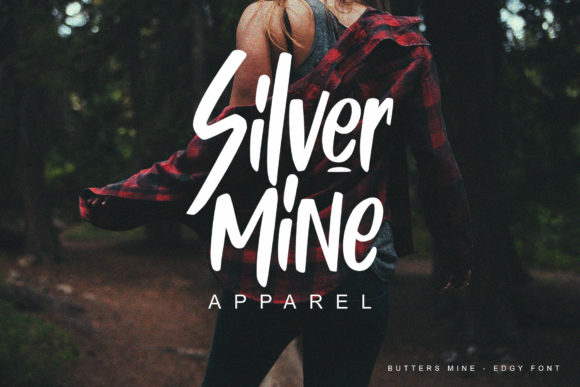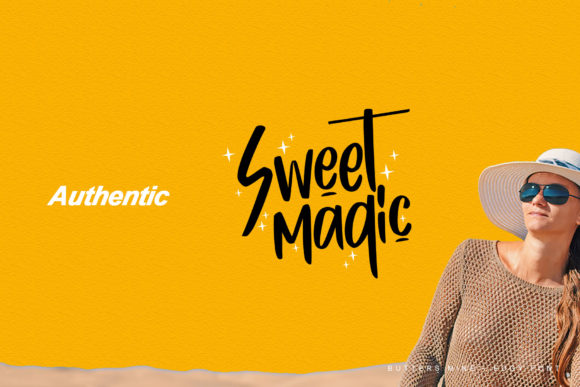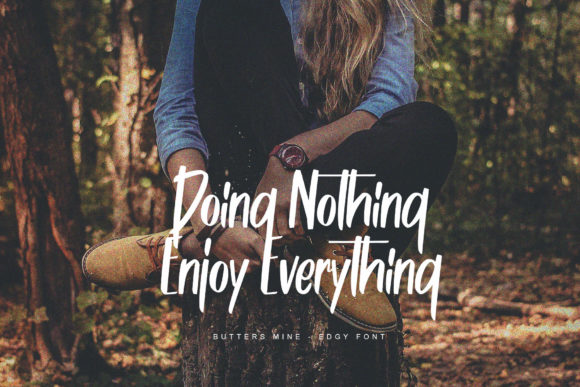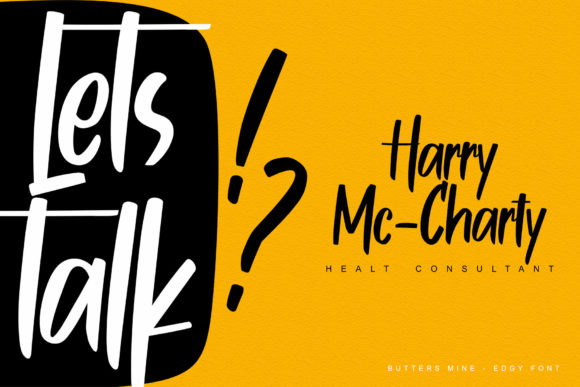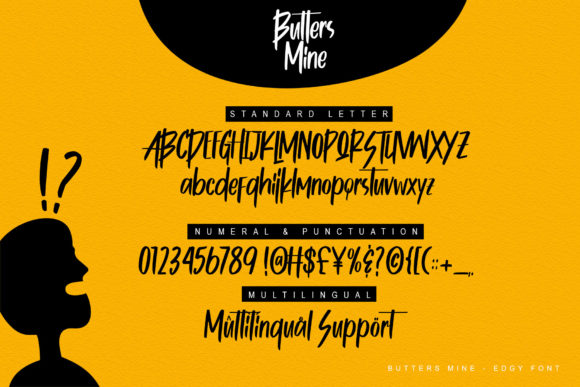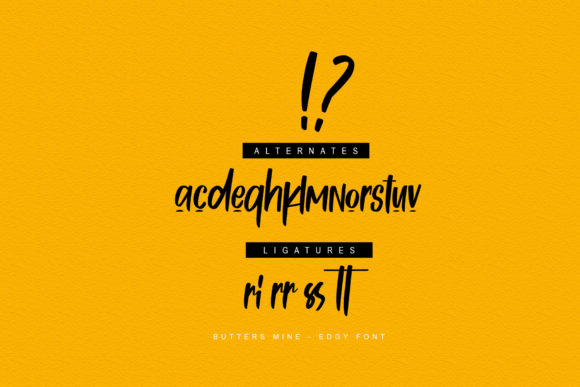
Introduction to Butters Mine Font
Butters Mine is an edgy and all round display font.
It has a tasteful and laid back style, and as a consequence, it matches a wide range of designs .